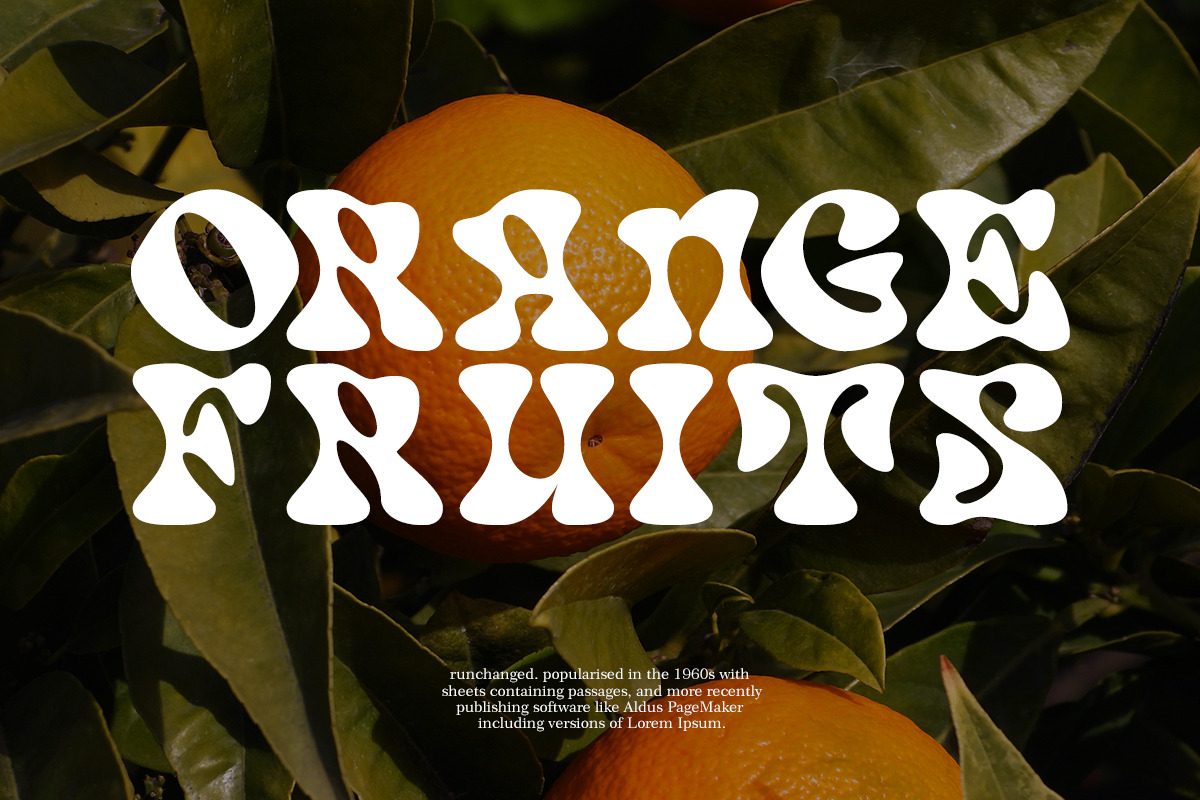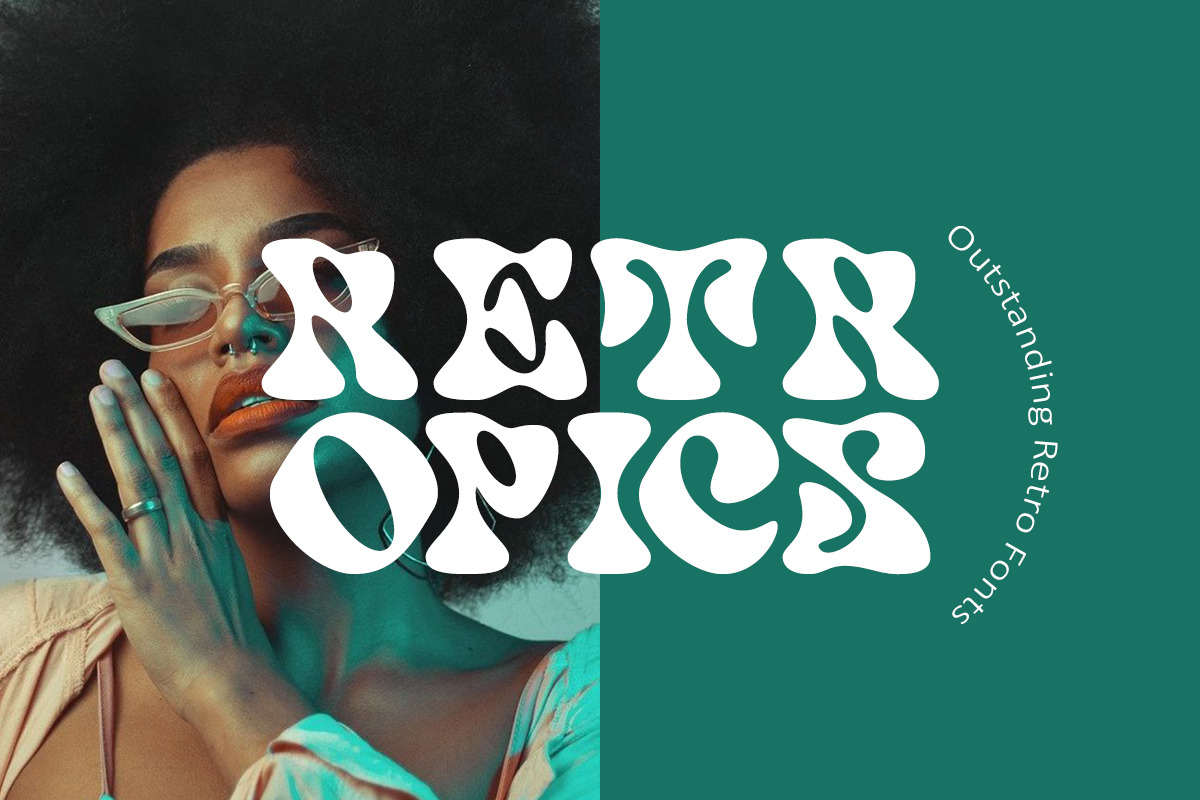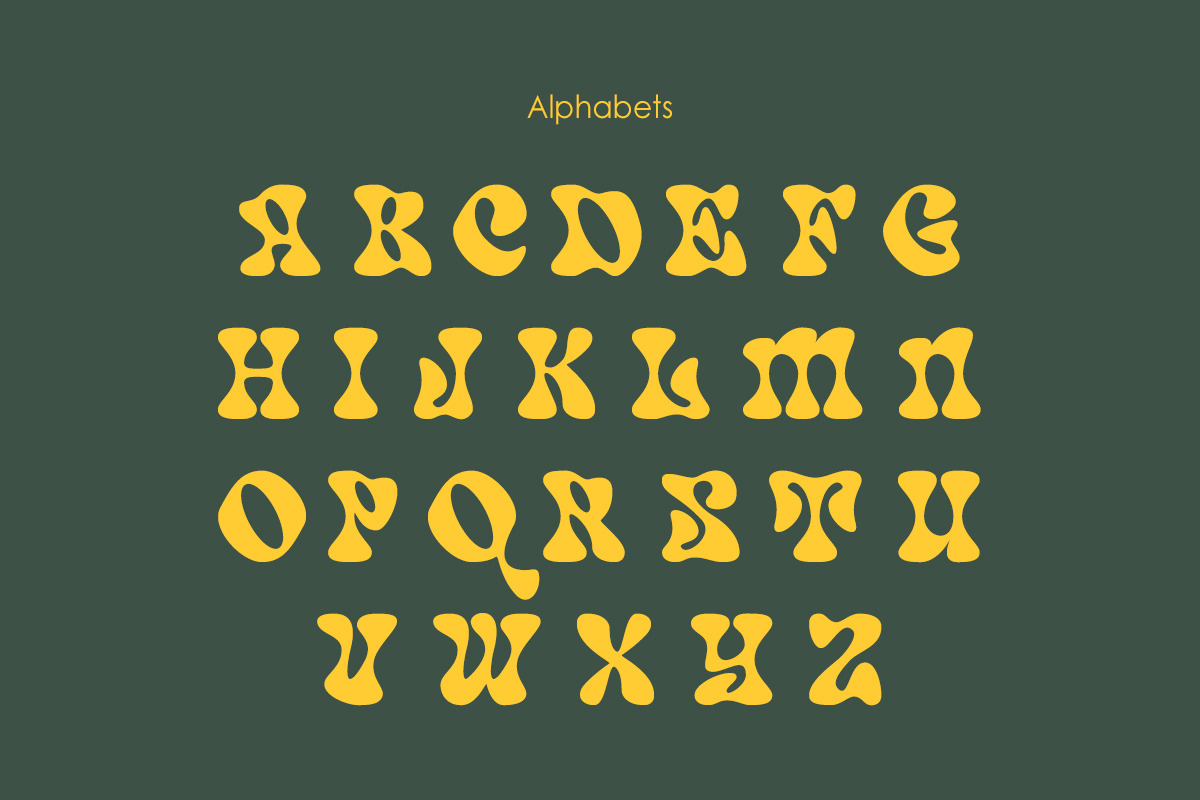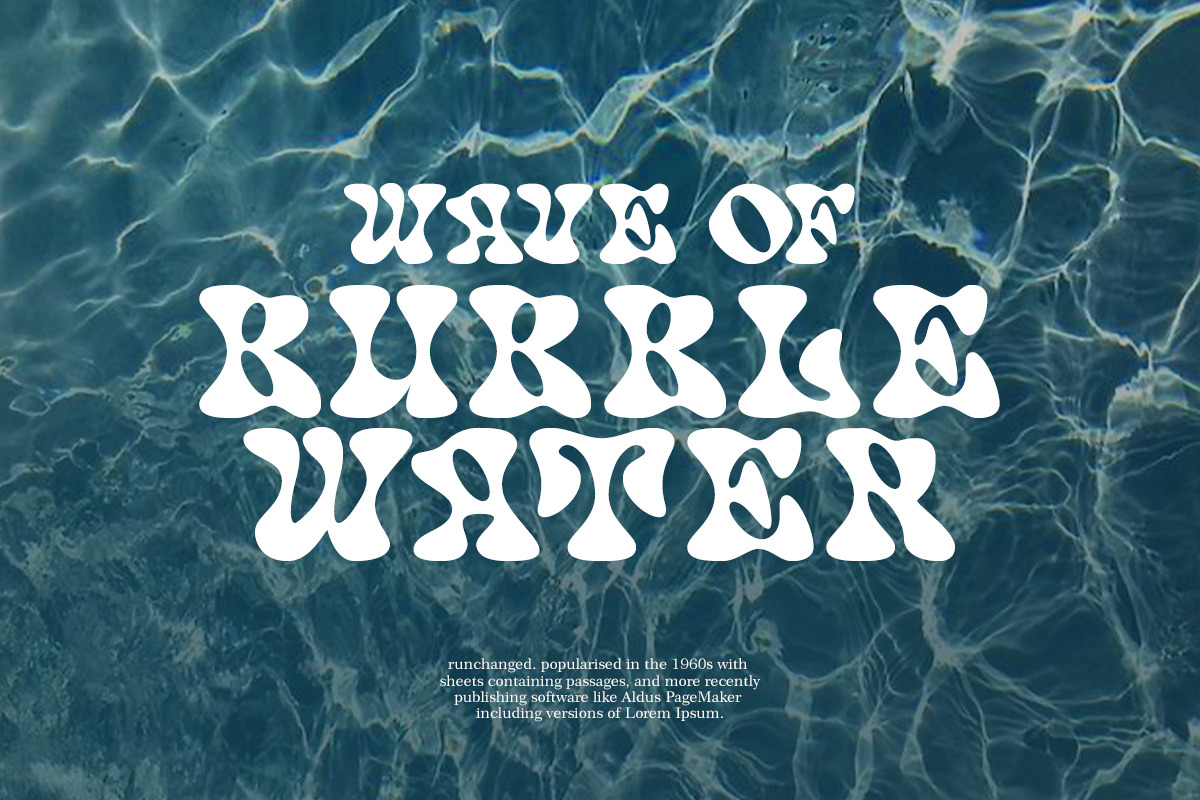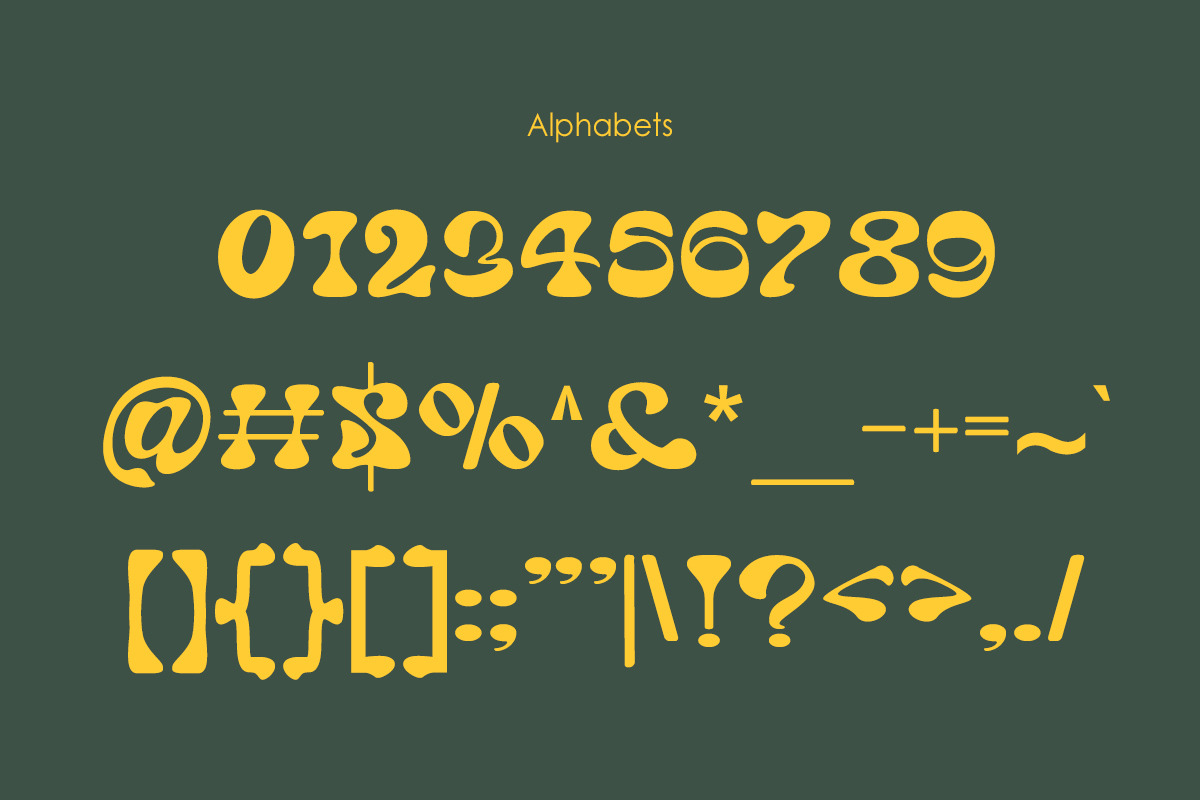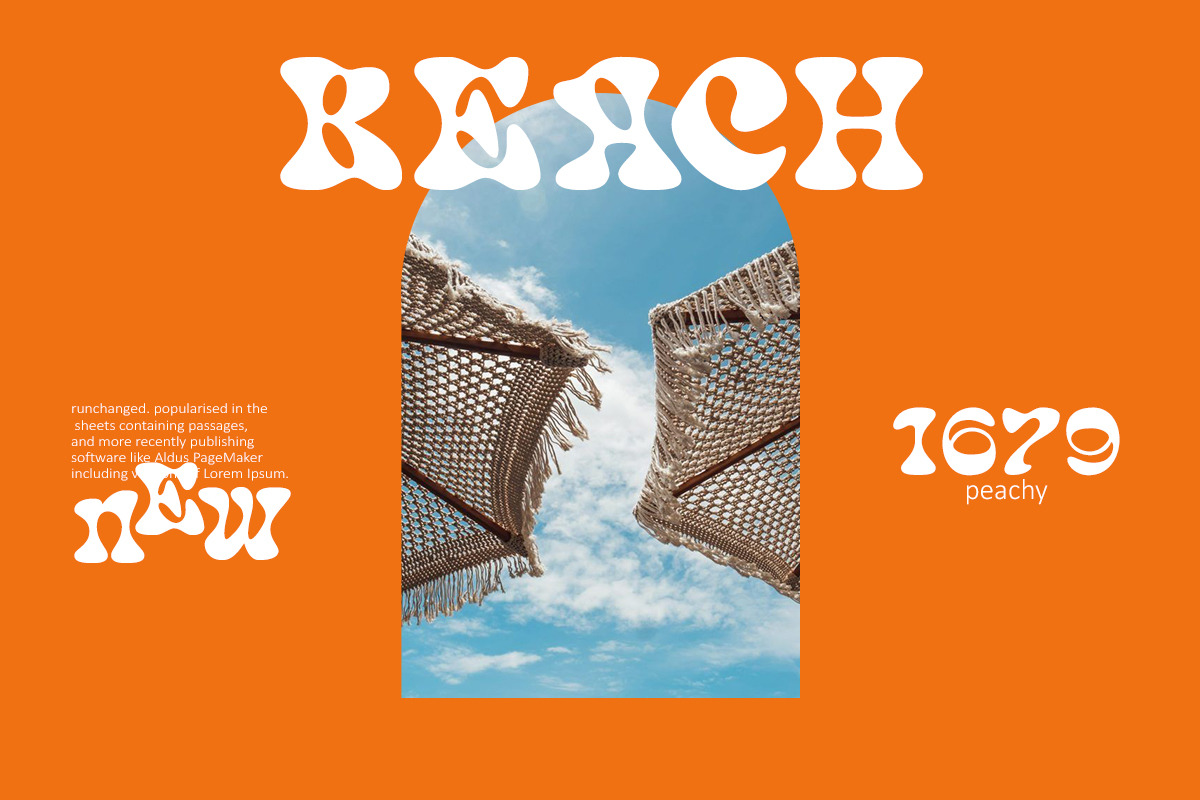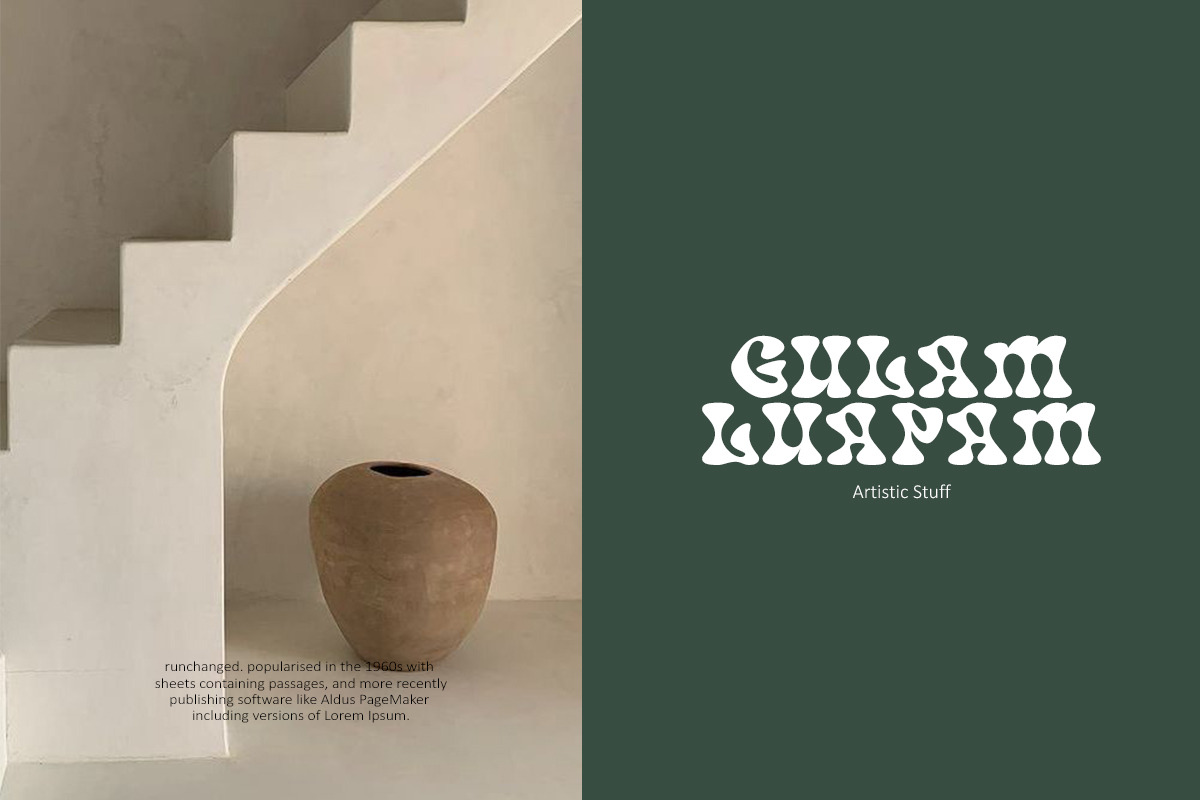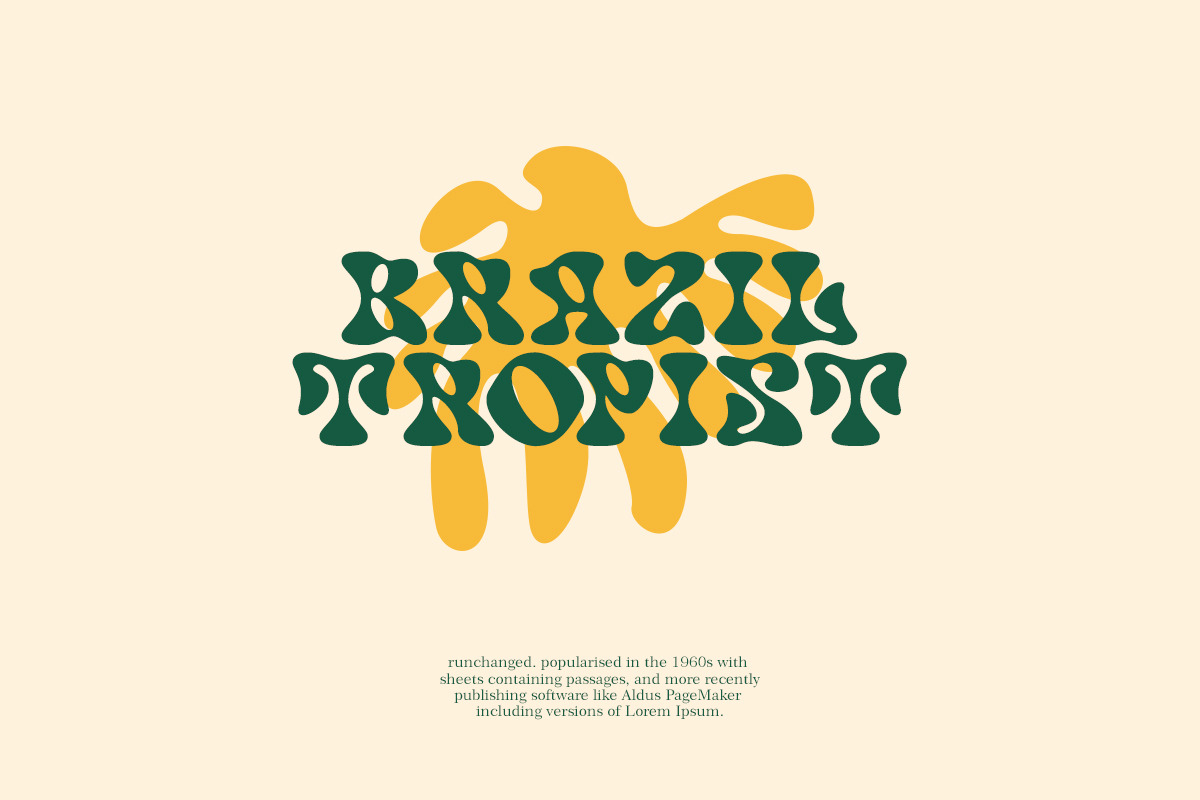
Sydney North Coast Bubble Retro Font
Sydney North Coast fonts include uppercase letters, lowercase letters, numerals, a large range of punctuation. Bubble font with retro style. Created for poster, web design, branding, illustrations, badges, and some other works.